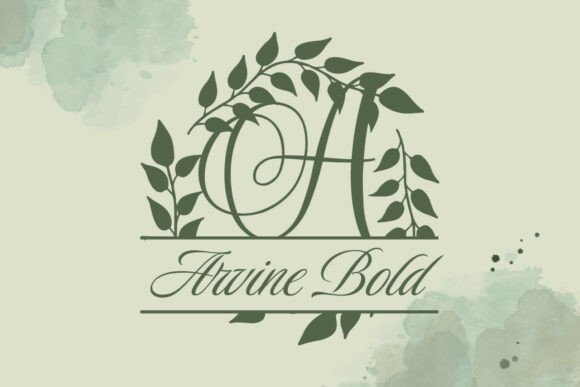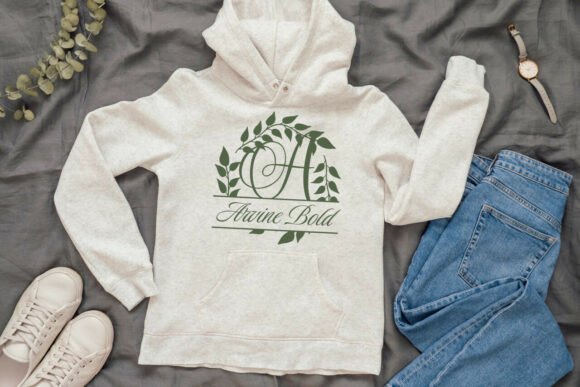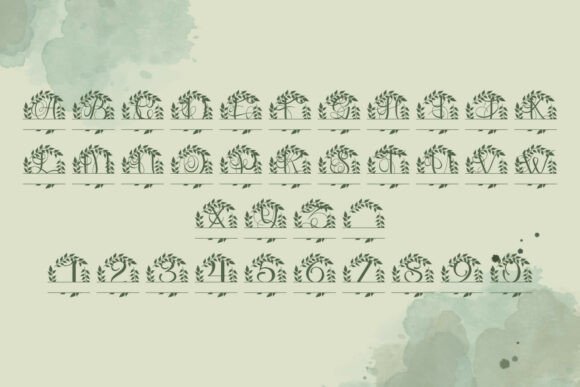
Monarcelle Split Monogram Font – Free Download
Introduction to Monarcelle Split Monogram Font
Monarcelle Split is a highly refined and distinctive display monogram font that offers an exquisite blend of ornate script and organic nature for luxurious personalization.
This font’s unique element is the split initial , featuring a dramatic, high-contrast script letter with elegant flourishes that is visually divided by a horizontal cut, perfect for inserting a name or date The initial is beautifully framed by a dense, naturalistic leafy wreath that suggests heritage and classic elegance.